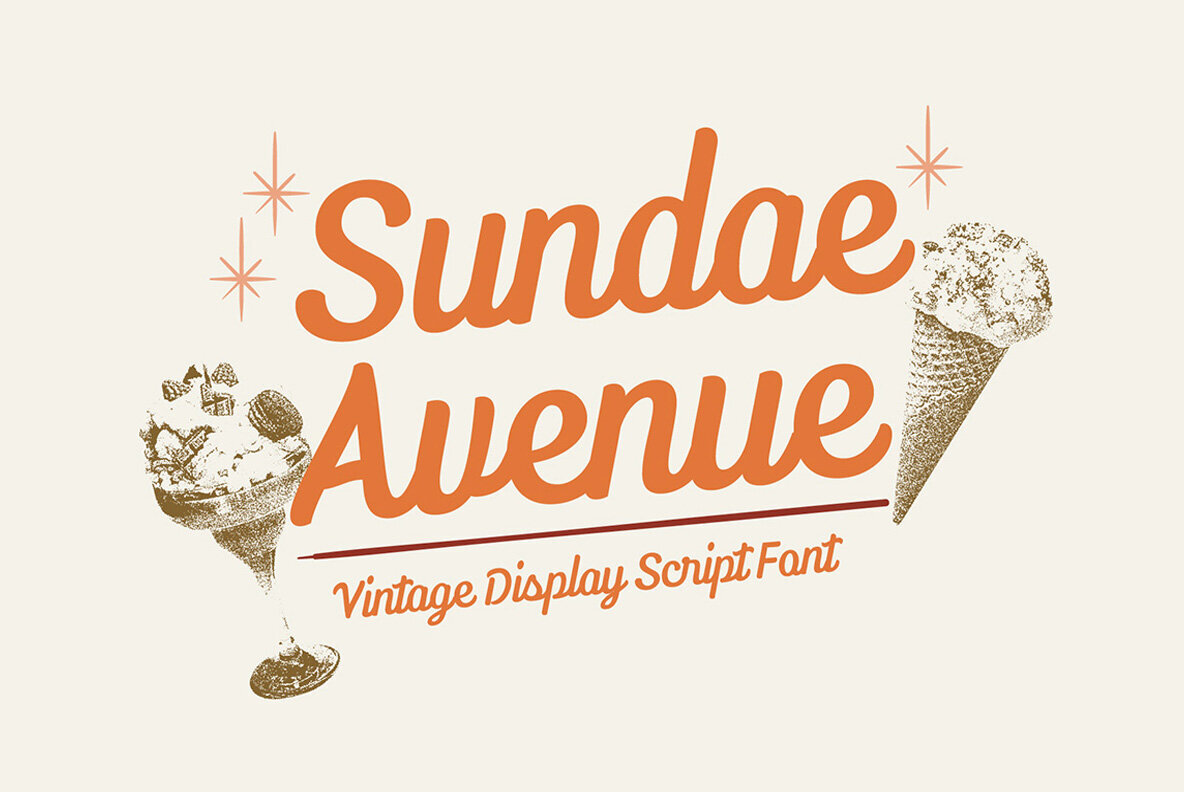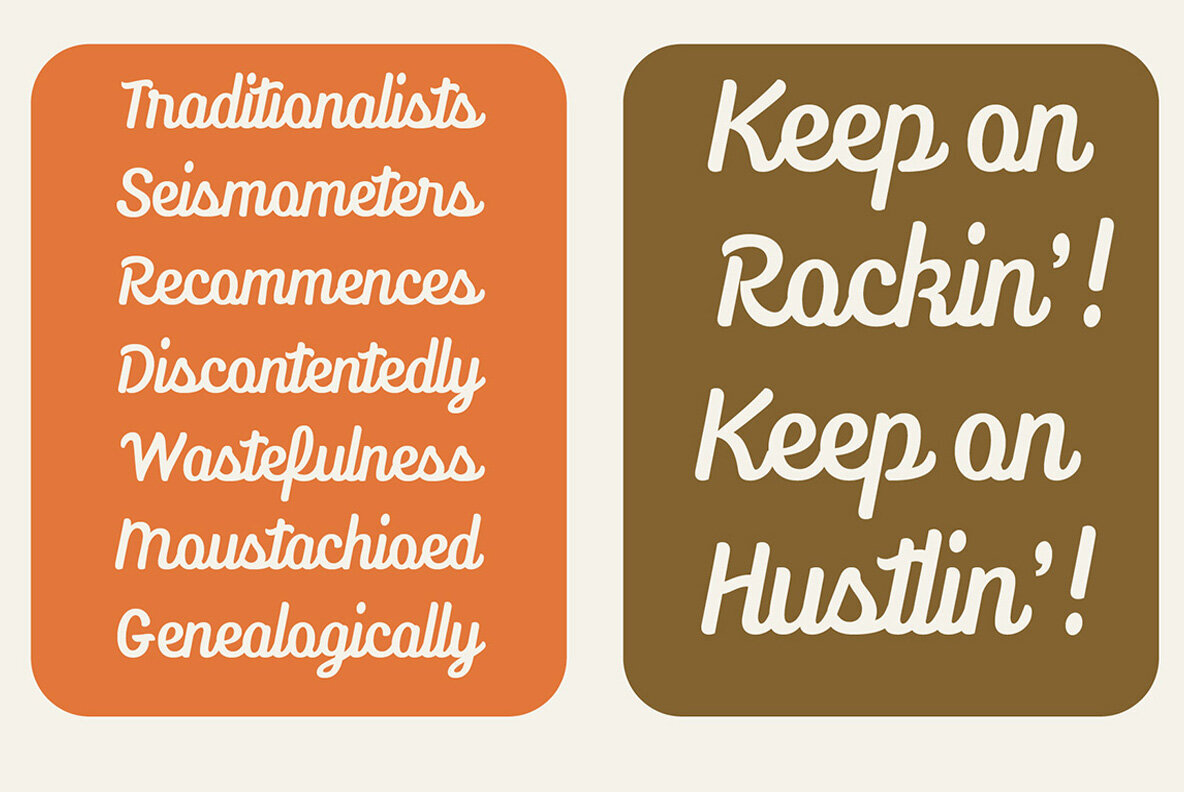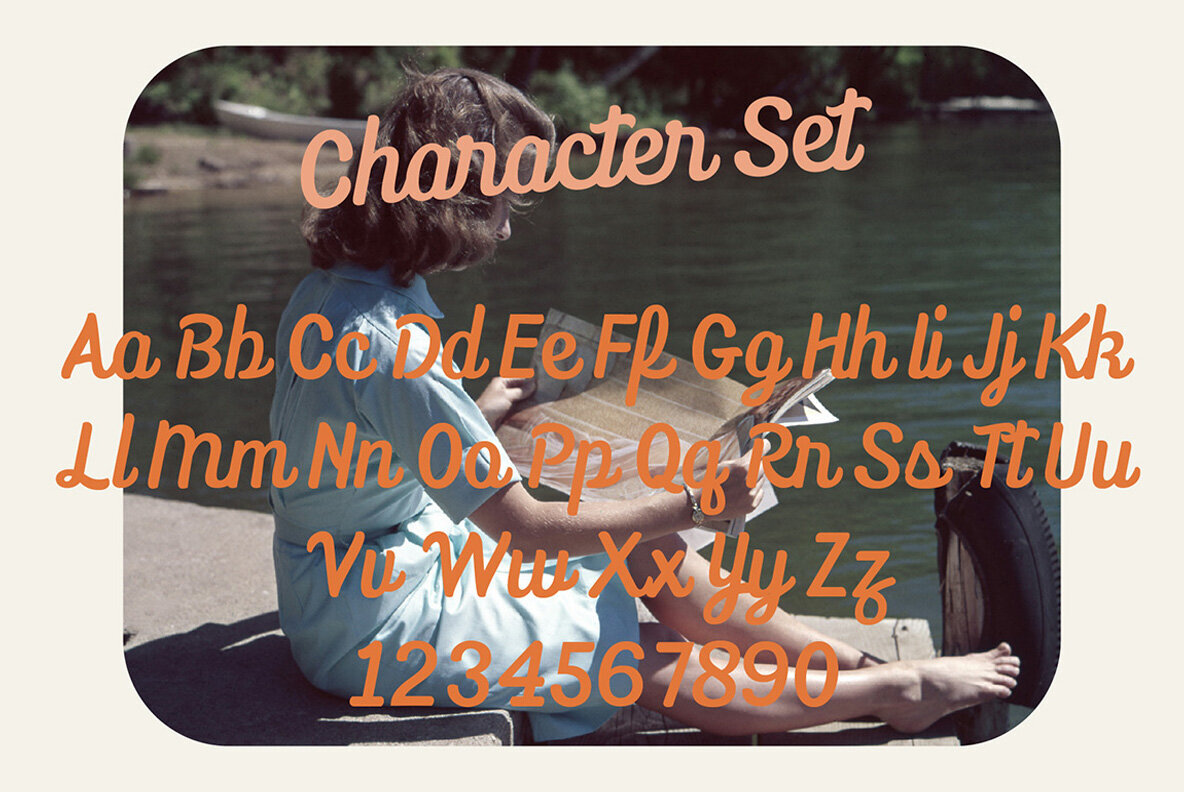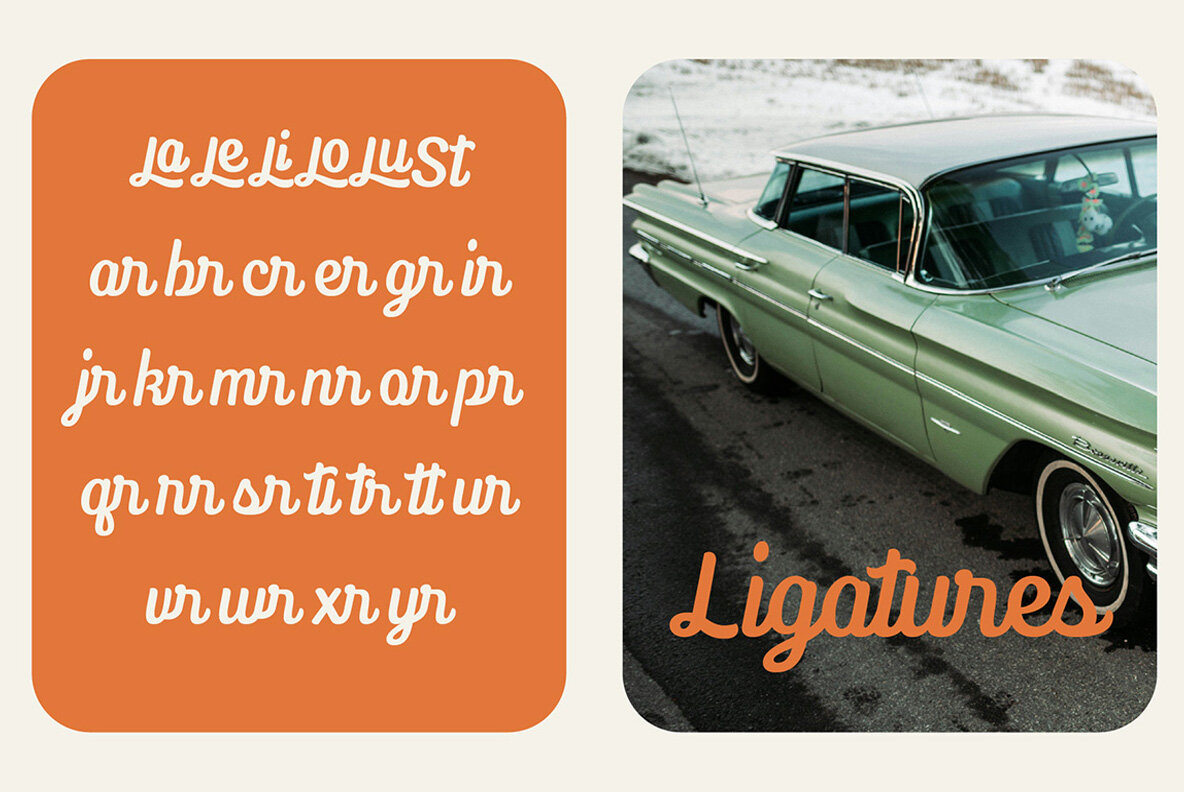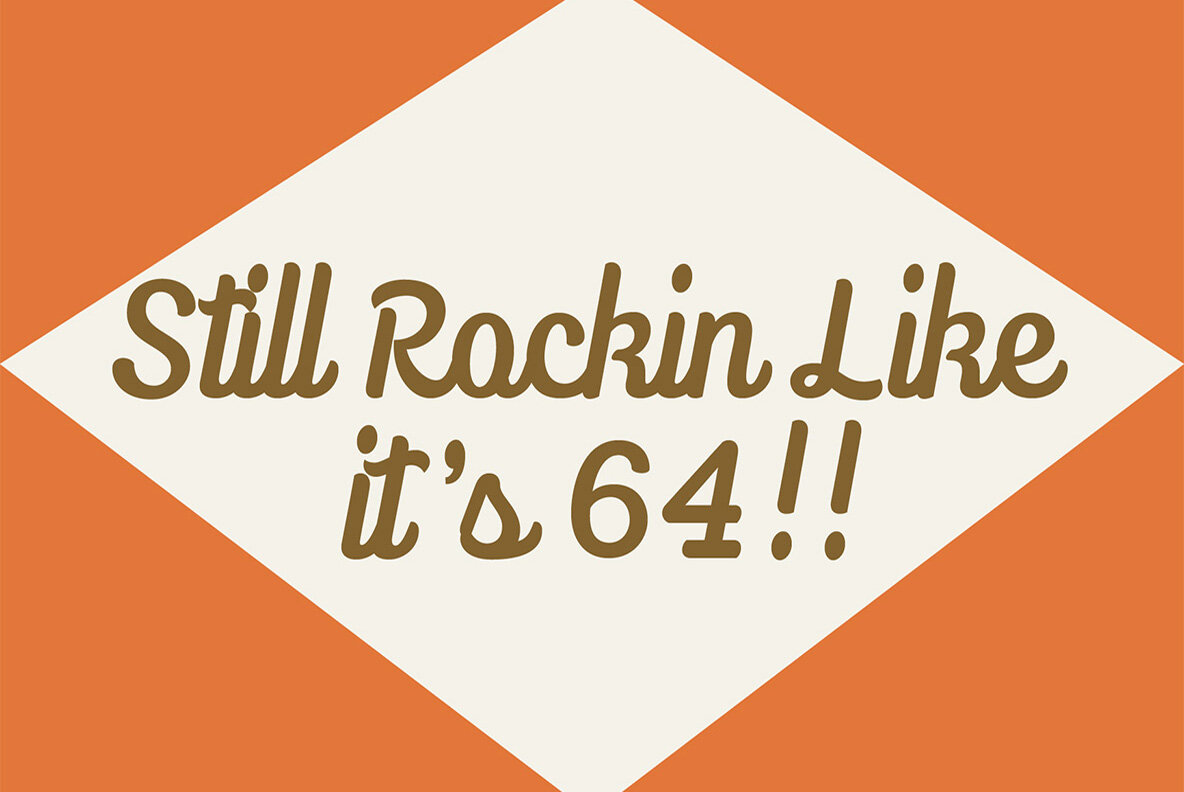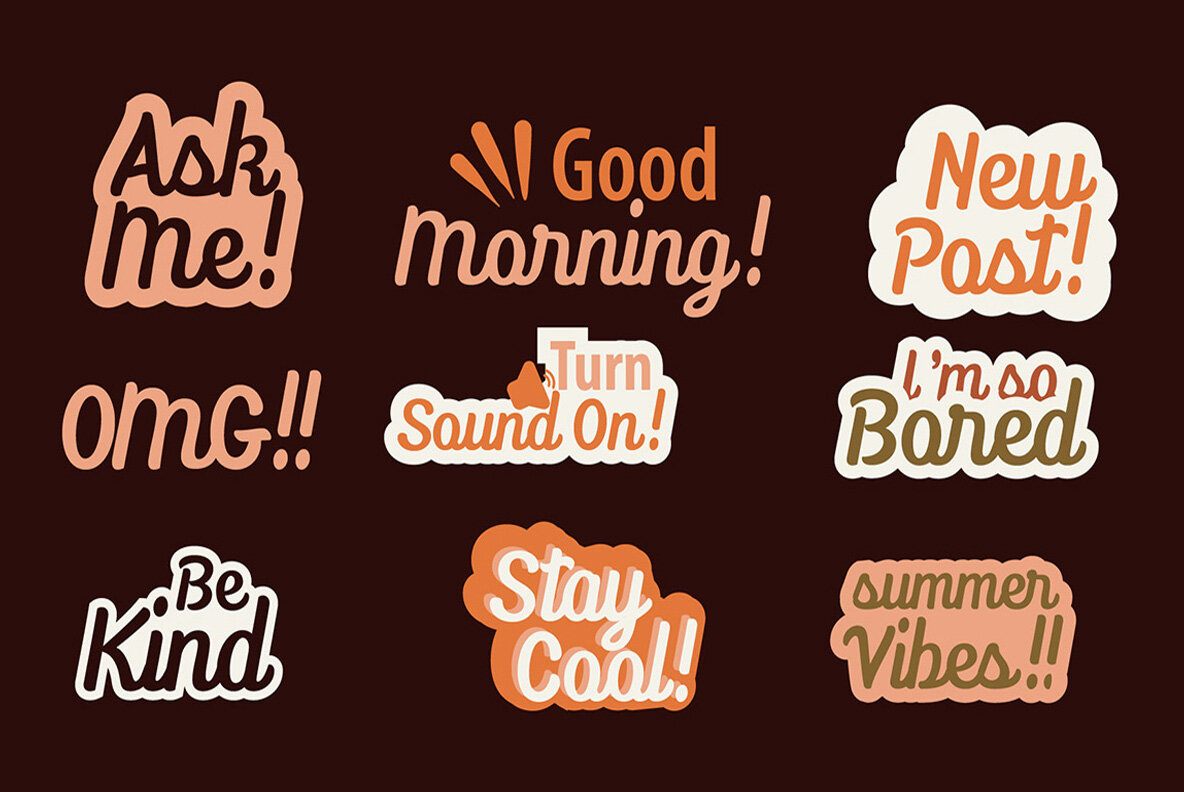
Sundae Avenue Font
Sundae Avenue Regular
Sundae Avenue is a captivating vintage script font that seamlessly blends retro elegance with a playful edge. Its nostalgic, handwritten style is suited for designs seeking to evoke timelessness. The font's fluid curves and distinct letterforms bring a whimsical touch to branding, invitations, logos, and various other creative projects.
This font's unique balance of sophistication and friendly appeal makes it an excellent choice for projects that aim to combine old-school charm with a contemporary aesthetic. Sundae Avenue stands out with its distinct style, making it ideal for designers looking to infuse their work with both classic allure and modern flair.